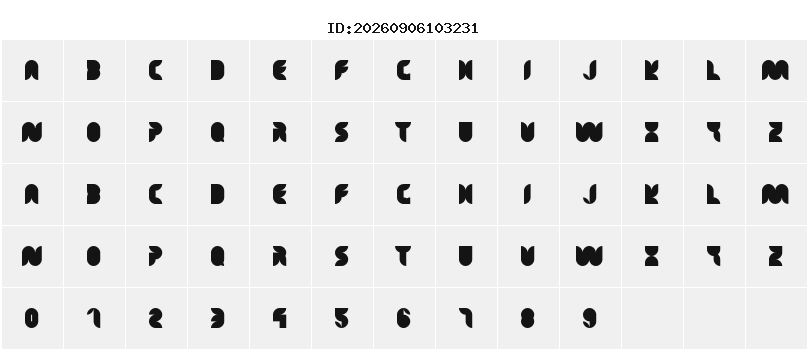
Tea Leaf Caps Preview
• Font Name: Tea Leaf Caps
• Designer: Matija Drozdek
About Tea Leaf Caps.otf
Tea Leaf Caps.otf is a modern, elegant sans-serif font designed for ultimate readability and visual harmony. Perfect for branding, headlines, web design, and print materials.